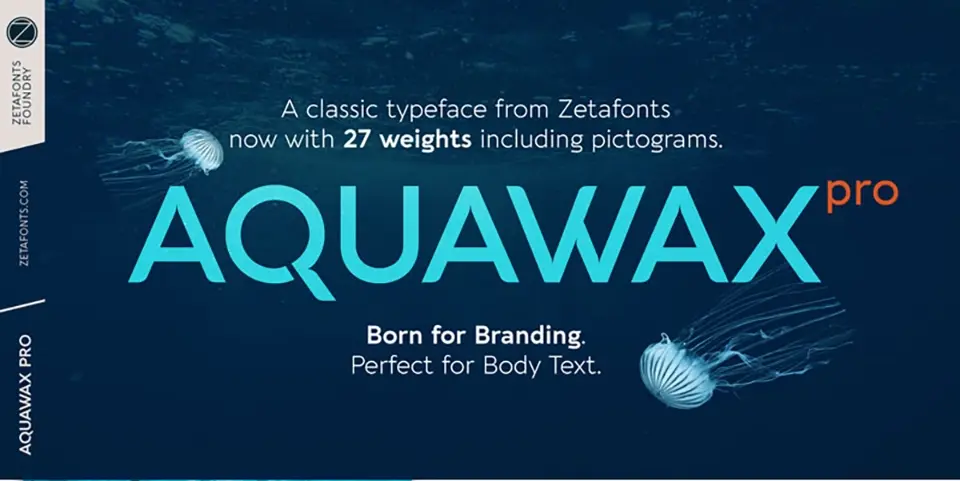
Aquawax Pro Font Family
Aquawax Pro is a versatile geometric sans serif typeface created in 2008 by Francesco Canovaro and redesigned by the Zetafonts team in 2019. Originally chosen by Warner Bros for the Aquaman film logo, this font features distinctive design details including blade-like letterforms and fin-inspired characters. With 27 weights ranging from thin to heavy, including italics and pictograms, Aquawax Pro supports over 200 languages using Latin, Cyrillic, and Greek alphabets. Its open geometric forms and generous x-height make it exceptionally readable at all sizes, perfect for both display design and body text applications.